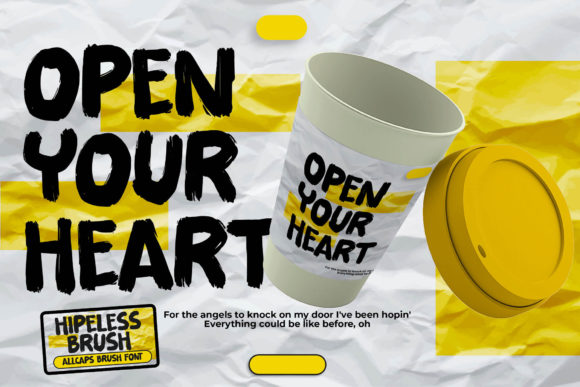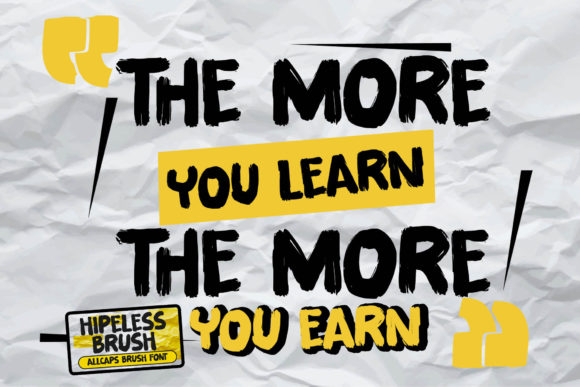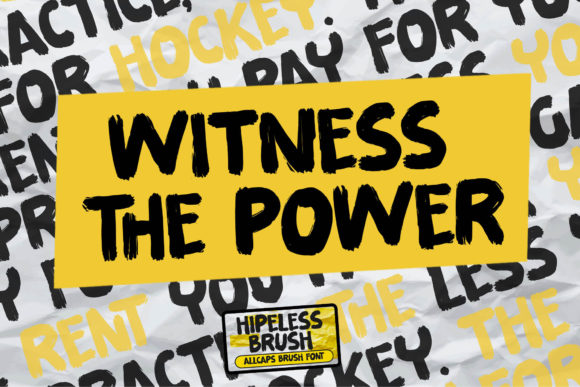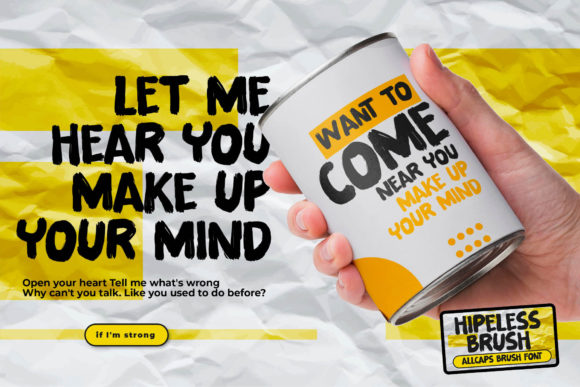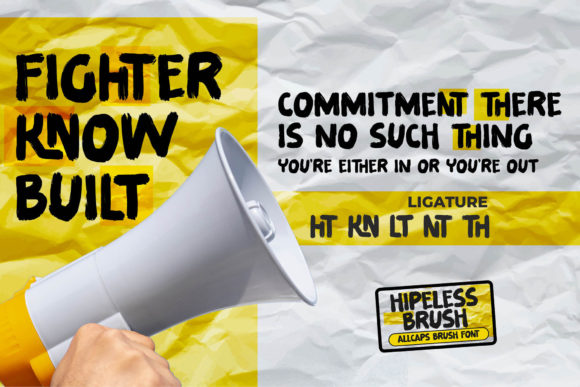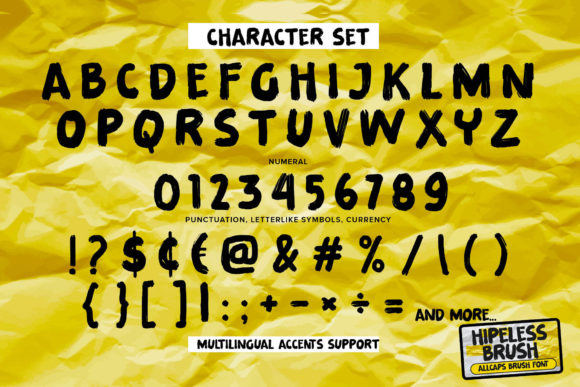
Introduction to Hipeless Brush Font
You’ve spent hours staring at a blank canvas, trying to find the perfect font to bring your creative project to life. The words just aren’t clicking, and you’re starting to feel like you’re stuck in a design rut. But then, you stumble upon it – the perfect combination of style and personality that makes your project pop. For designers, the hunt for the perfect font can be a daunting task, but what if we told you that the solution is just a click away?
Enter the Hipeless Brush Font, a high-quality display font that’s designed to look natural and authentic. With its casual, cool vibe, this font is perfect for almost any creative project, from social media graphics to advertising campaigns. Whether you’re a seasoned designer or just starting out, the Hipeless Brush Font is a valuable addition to your design resource library.
Key Features of Hipeless Brush Font
- High-quality, hand-drawn design perfect for creative projects requiring a unique touch.
- Unique characteristics include a hand-painted feel and subtle texture, adding a touch of personality to your design.
Honest Review: Hipeless Brush Font
I recently came across the Hipeless Brush Font, and I must say it’s a great addition to any designer’s toolkit. The font is perfect for creative projects that require a unique and artistic touch. The free download is a huge plus, making it easily accessible to designers on a budget.
One of the standout features of this font is its high quality. The brush strokes are smooth, and the lines are crisp. It’s perfect for creating designs with a transparent background, which is a great feature for designers who want to create a sense of depth and dimension.
- High-quality brush strokes
- Smooth lines and curves
- Perfect for designs with transparent backgrounds
- The font may not be suitable for body text due to its brush-like strokes
- Some users may find the font too playful or casual for certain design projects
Overall, I’m impressed with the Hipeless Brush Font. It’s a great design resource for designers who want to add a unique touch to their creative projects. While it may have some limitations, the pros definitely outweigh the cons.
The Hipeless Brush Font is perfect for creative projects that require a high-quality, unique font. Some common use cases include:
- Brand logos and marketing materials
- Photography captions and quotes
Tips for Getting the Most Out of Hipeless Brush Font
To get the most out of the Hipeless Brush Font, make sure to:
- Use a transparent background to achieve a clean and modern look
- Experiment with different font sizes and colors to create visual interest
- Combine the font with other design elements, such as images and graphics, to create a cohesive design